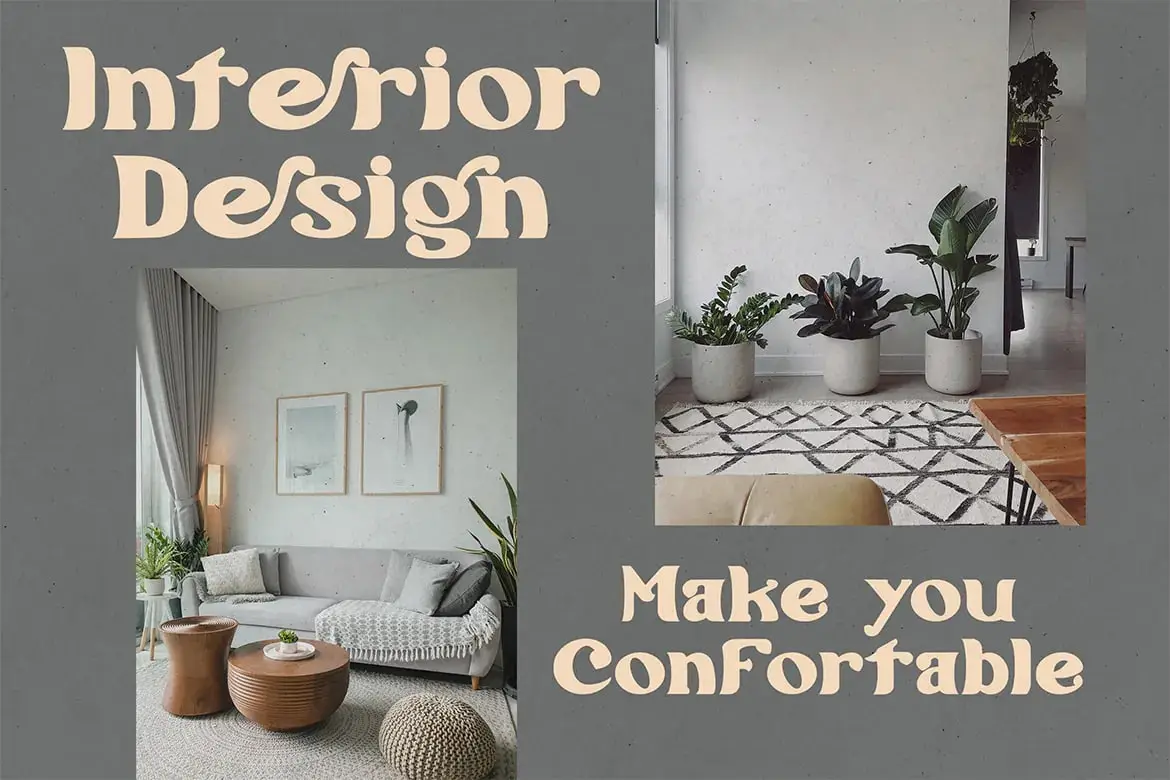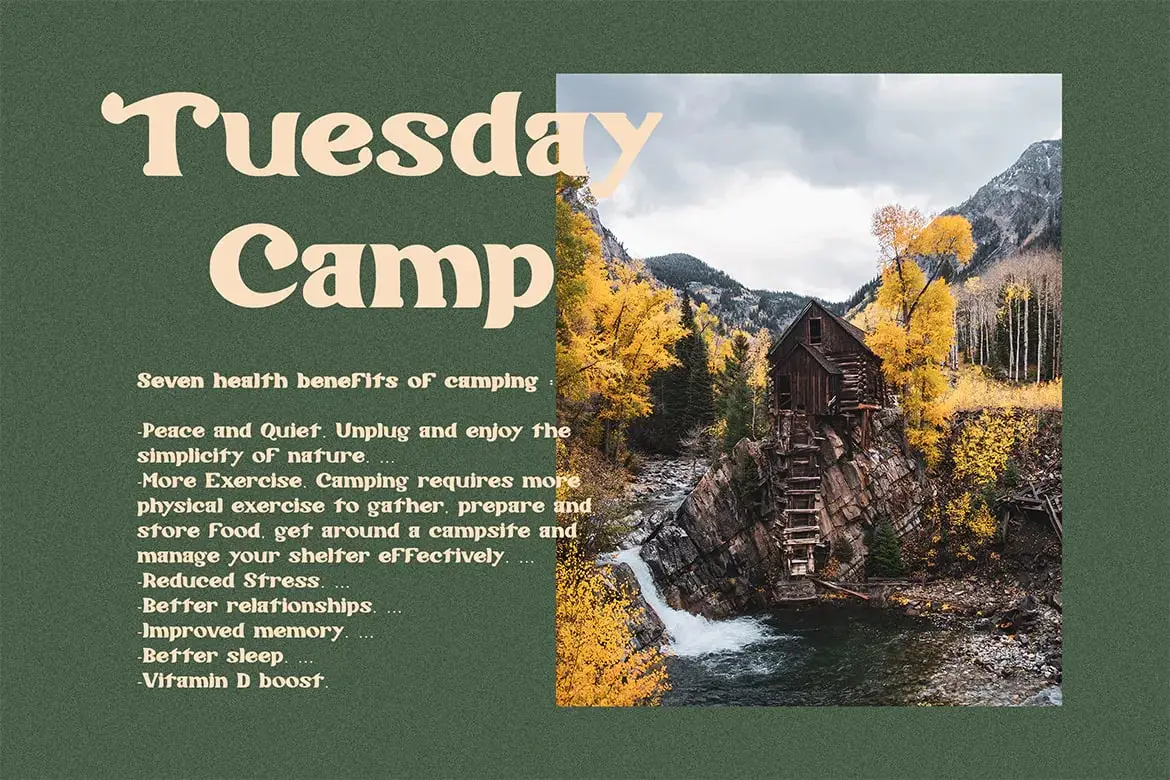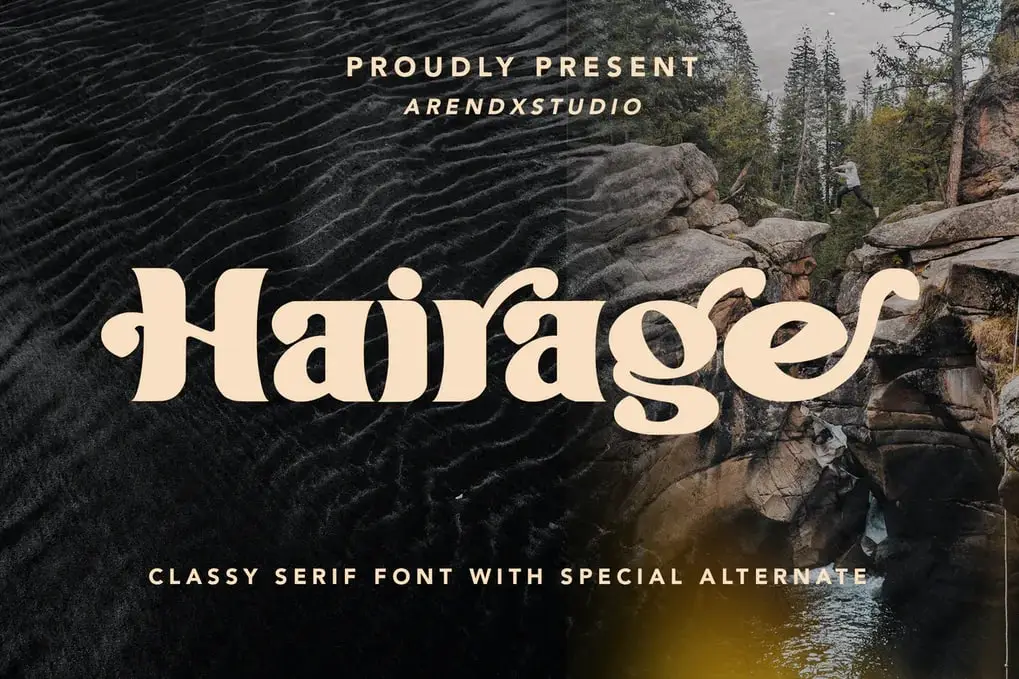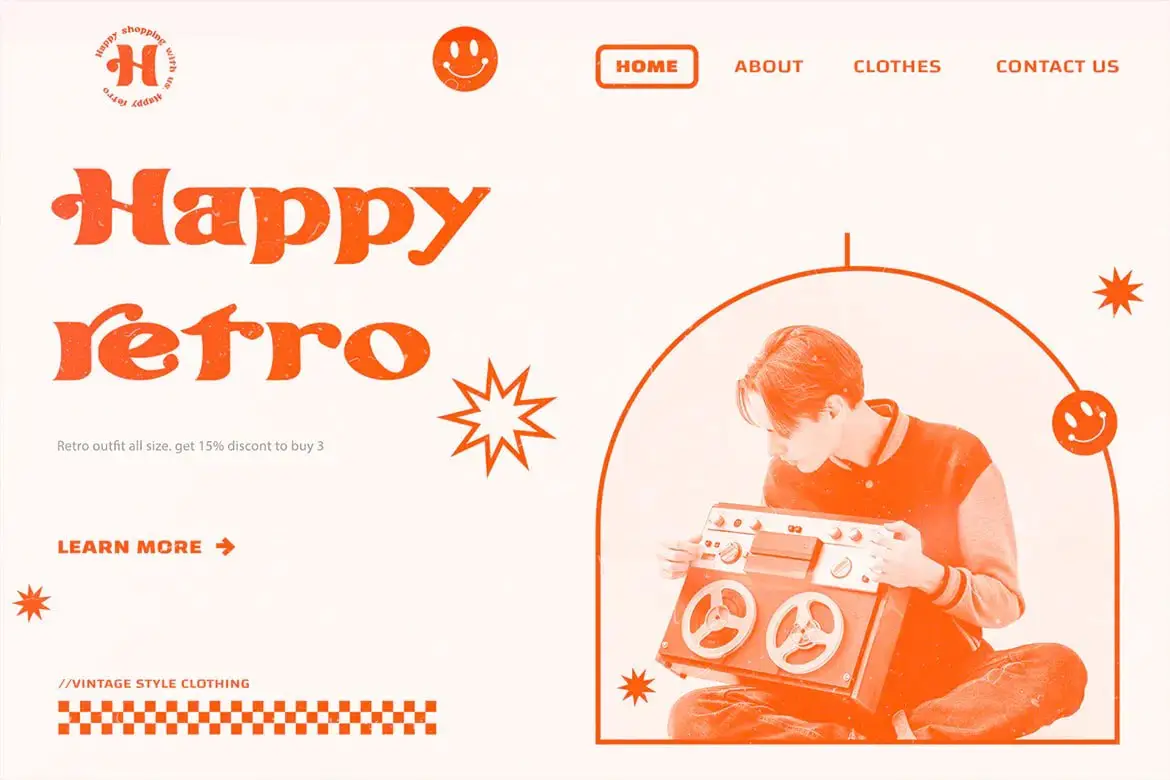
Arendxstudio Hairage Classy Serif Font
The Arendxstudio Hairage Classy Serif Font is a beautifully crafted typeface that combines elegance with modernity. Perfect for a variety of design projects, this font brings a touch of sophistication to your work.
• Stylish serif design
• Multiple weights for versatile use
Ideal for branding, logos, web design, print materials, and UI elements, the Hairage Classy Serif Font adds a refined touch to any project.